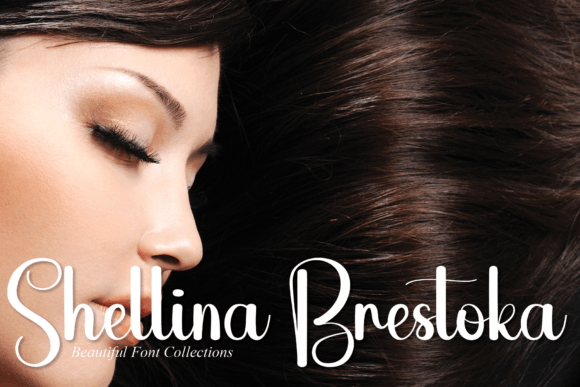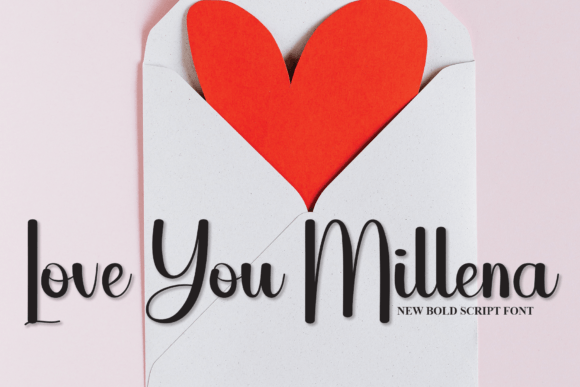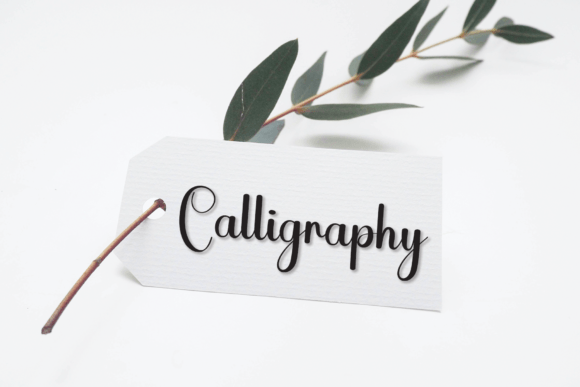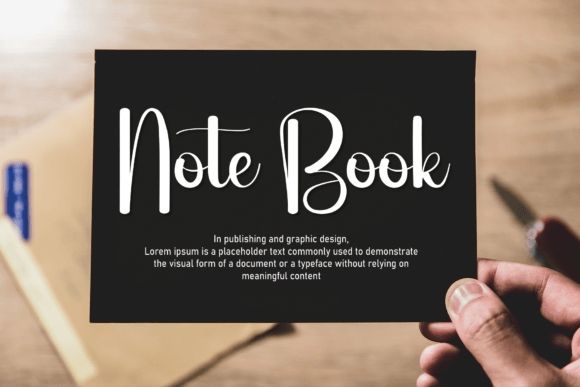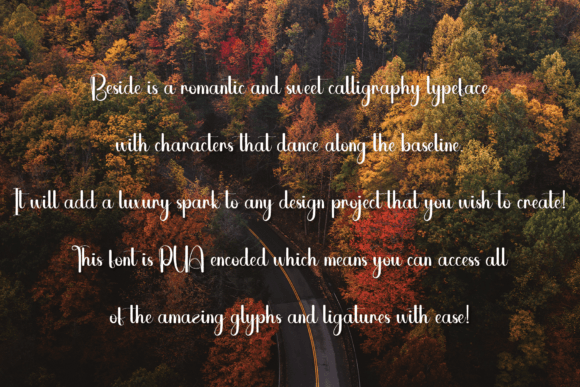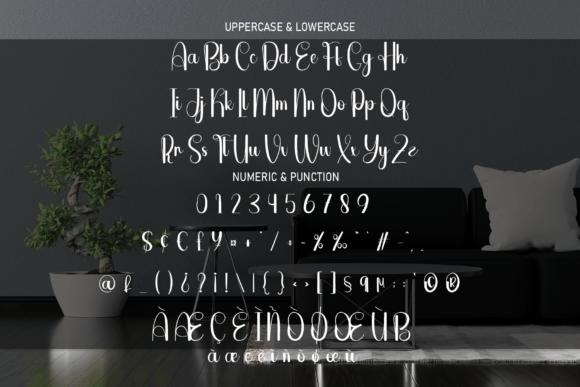
Introducing Beside Font: Elevate Your Designs with Elegance
Are you on the hunt for a font that adds a touch of sophistication and elegance to your designs? Look no further than Beside Font, a beautiful, flowing handwritten font that is sure to capture your heart. With its unique and timeless style, Beside Font is the perfect addition to your favorite projects, allowing you to create spectacular designs that stand out from the crowd.
The Characteristics of Beside Font
Beside Font is described by its elegant touch, which is evident in its smooth, flowing lines and curves. This handwritten font is designed to evoke a sense of luxury and refinement, making it ideal for a wide range of design applications, from wedding invitations and branding materials to packaging and digital media.
One of the key features that sets Beside Font apart is its incredibly distinct style. Unlike other fonts that can look generic or overused, Beside Font has a unique character that is both memorable and eye-catching. Its timeless quality ensures that your designs will never go out of style, allowing you to create content that remains relevant and beautiful for years to come.
What Makes Beside Font So Versatile?
Beside Font is an incredibly versatile font that can be used in a variety of design contexts. Whether you’re working on a personal project or a client’s, this font can adapt to any style or theme. Here are just a few examples of how you can use Beside Font:
- Wedding and Event Design: Create stunning wedding invitations, save-the-date cards, and event posters with Beside Font’s elegant touch.
- Branding and Packaging: Use Beside Font to develop a unique brand identity that exudes luxury and sophistication. It’s perfect for high-end product packaging, logos, and marketing materials.
- Digital Media: Enhance your digital content with Beside Font’s beautiful script. It’s ideal for social media graphics, blog headers, and website designs.
- Crafting and DIY Projects: If you’re a crafter or DIY enthusiast, Beside Font can add a personal touch to your handmade projects, such as journals, planners, and craft tutorials.
How to Use Beside Font Effectively
To get the most out of Beside Font, here are a few tips for using it effectively in your designs:
- Pair it with Complementary Fonts: Combine Beside Font with simpler fonts to create visual contrast and hierarchy in your designs.
- Experiment with Colors: While Beside Font looks beautiful in black or dark colors, don’t be afraid to experiment with different colors to match your brand or project’s theme.
- Play with Sizes: Use varying font sizes to create emphasis and add depth to your designs.
In conclusion, Beside Font is a stunning handwritten font that can elevate your designs to new heights. Its elegant touch, distinct style, and versatility make it an excellent choice for designers and crafters looking to add a touch of sophistication to their projects. Whether you’re working on a professional project or a personal craft, Beside Font is sure to inspire you to create spectacular designs that leave a lasting impression.